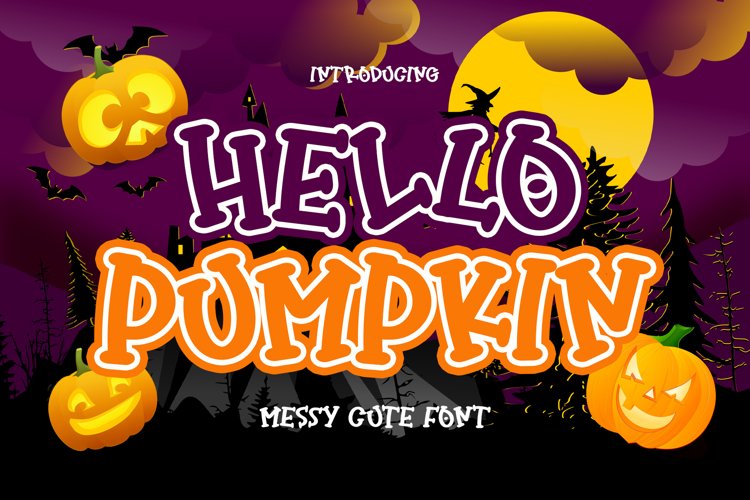
Hello Pumpkin is cute and playful handwritten font with messy style. It is quirky, joyful, and sweet. This font is so perfect for your playful design, such as for halloween design, school project, children design, and others.
+Tons of Glyphs, including beautiful alternate glyphs.
+Multilingual glyphs.